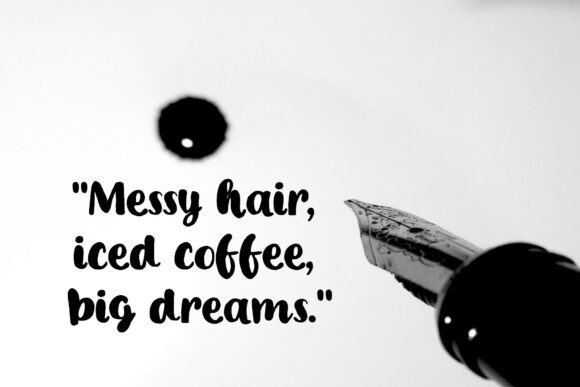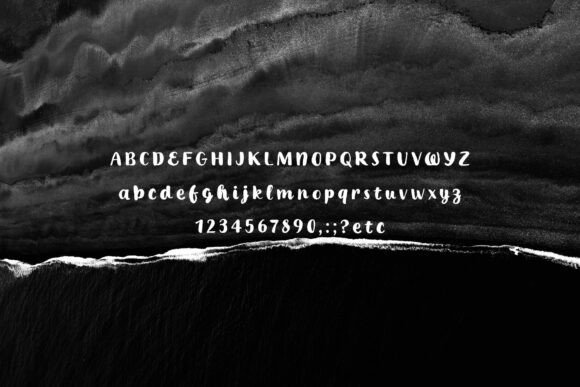
Introduction to Inky Whirl Font Font
Fonts play a crucial role in design, and the Inky Whirl Font font is a typeface that brings both character and versatility to any project. Whether you’re working on a branding project, a website, or a print design, the Inky Whirl Font font offers a unique style that can elevate your work.
InkyWhirl is a new addition to the world of typography.
This font is scribbled, friendly, and perfect for any kind of creative endeavor you may be using Contains all capital letters, numbers, and basic punctuation.
Key Features of Inky Whirl Font Font
Why Choose Inky Whirl Font Font?
The Inky Whirl Font font is more than just a typeface – it’s a design tool that helps you communicate your message with style and clarity. Its unique character set and versatile design make it suitable for a wide range of applications, from elegant invitations to bold headlines.
With its carefully crafted letterforms and balanced proportions, the Inky Whirl Font font ensures readability and visual appeal across all mediums.
What makes Inky Whirl Font font special?
The Inky Whirl Font font stands out with its unique design, exceptional readability, and versatility across various design applications.